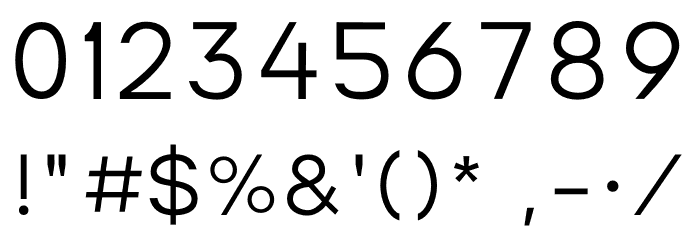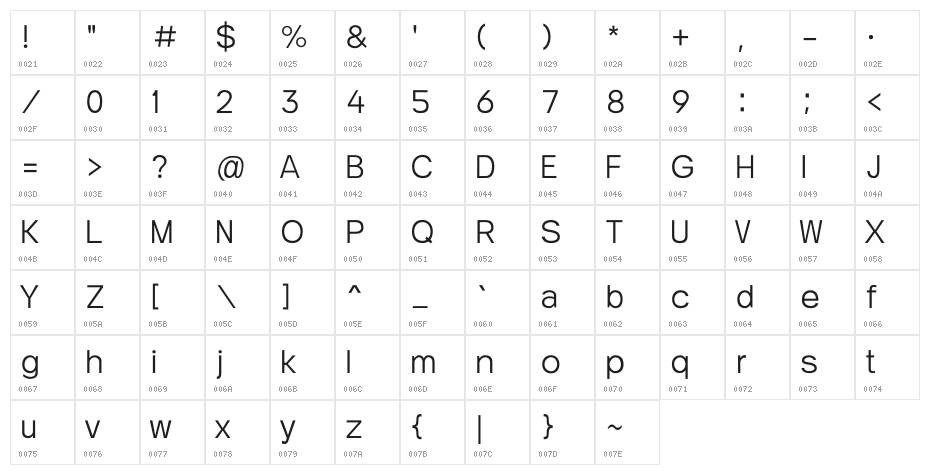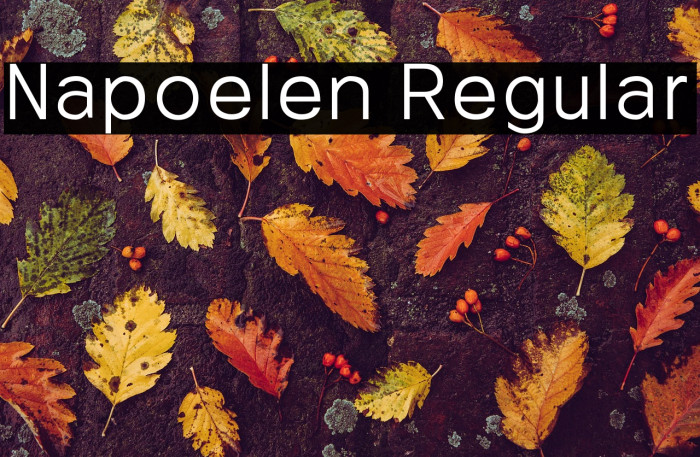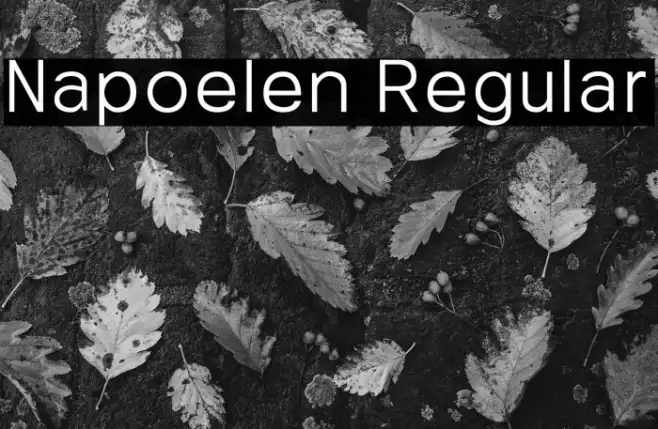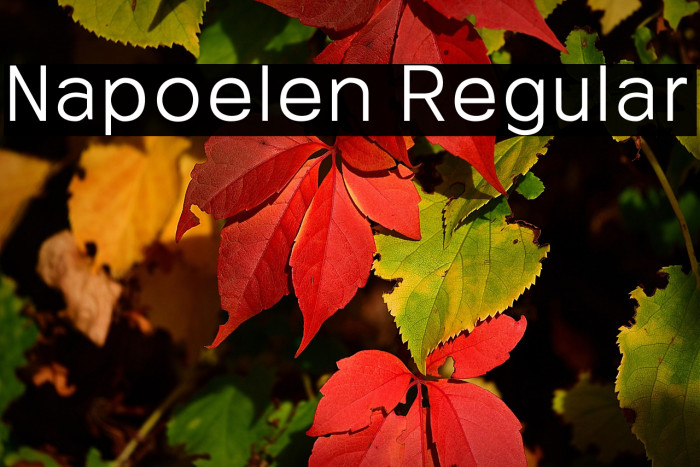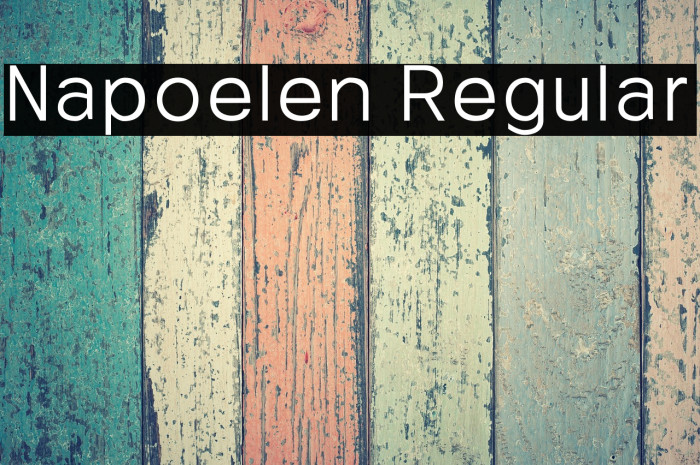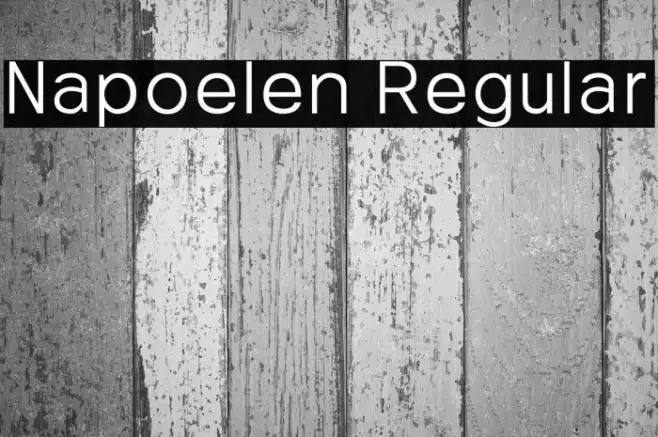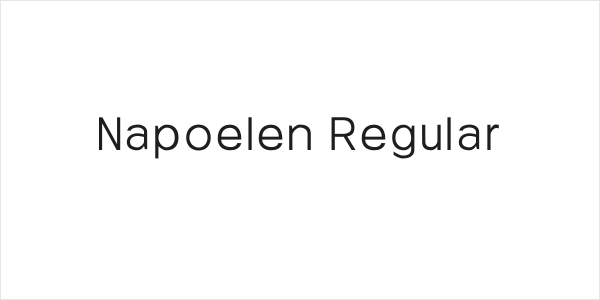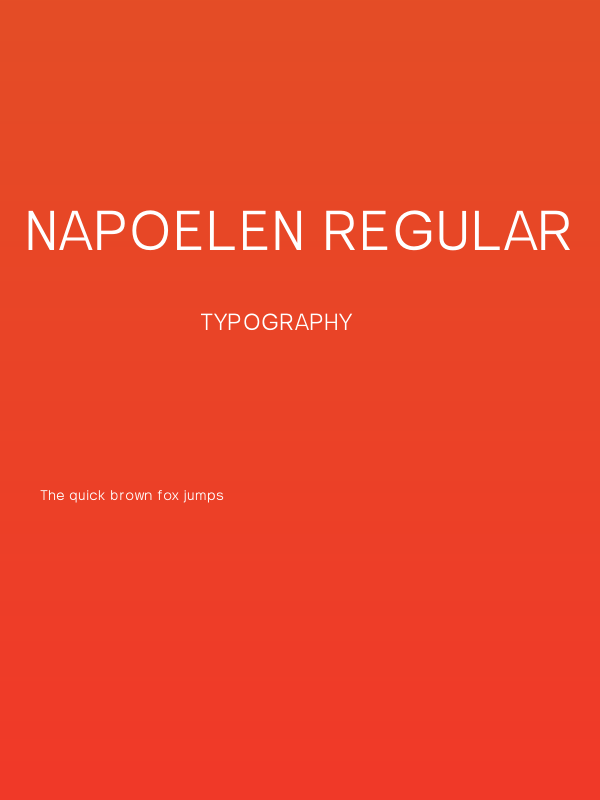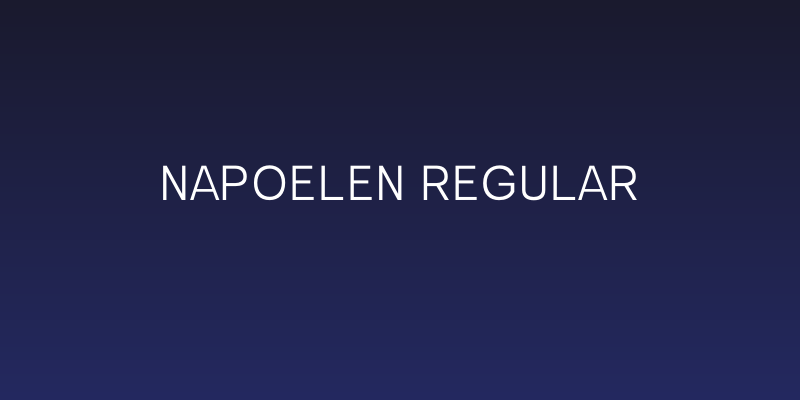
Napoelen Regular Font
Napoelen Regular Description
This typeface exhibits a clean and modern aesthetic with a sans-serif style. The characters are well-proportioned, featuring uniform stroke widths that contribute to a balanced and harmonious appearance. The uppercase letters are bold and assertive, while the lowercase letters maintain a consistent flow, enhancing readability. The numerals are clear and distinct, making them suitable for various applications. Special characters are designed with simplicity, ensuring they integrate seamlessly with the rest of the character set. Overall, this font is versatile, offering a professional look suitable for both digital and print media.
| Proposed Projects | Ideal for corporate branding, website headers, digital content, and print materials. |